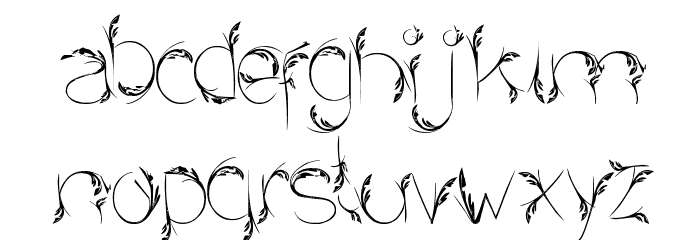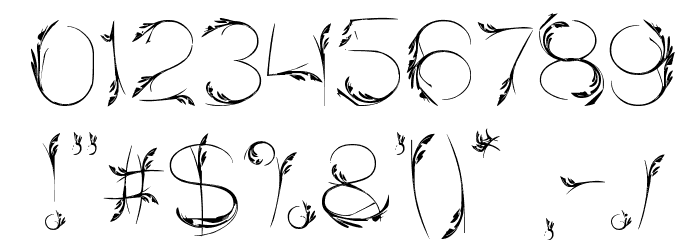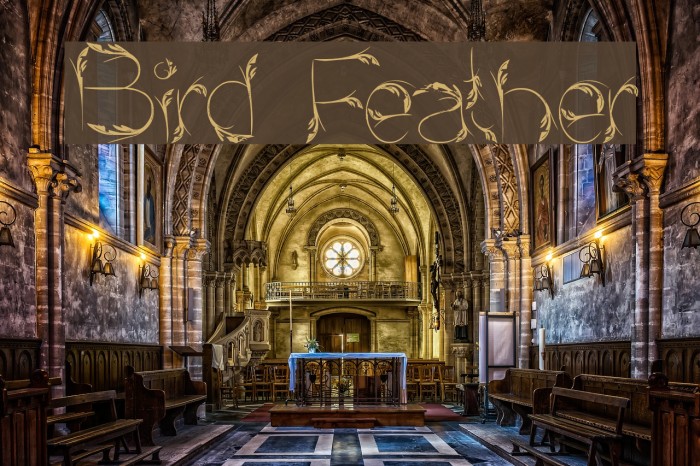
Bird Feather Font
This font features an intricate design where each character is adorned with delicate feather-like embellishments, creating a whimsical and nature-inspired aesthetic. The strokes are smooth and flowing, with each letter incorporating elements that resemble bird feathers, giving it a unique and decorative appearance. The overall look is elegant and artistic, making it suitable for projects that require a touch of creativity and sophistication. The font maintains readability while offering a distinct style that stands out, ideal for capturing attention in various design contexts.
A decorative font with feather-like embellishments for a whimsical, nature-inspired look.
- Proposed Projects: Ideal for invitations, greeting cards, branding projects, and any design requiring an artistic and nature-themed touch.
- Use Case: Headlines, Logos, Artistic designs